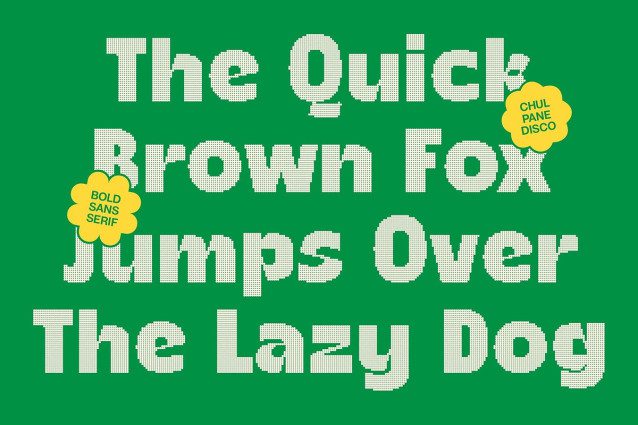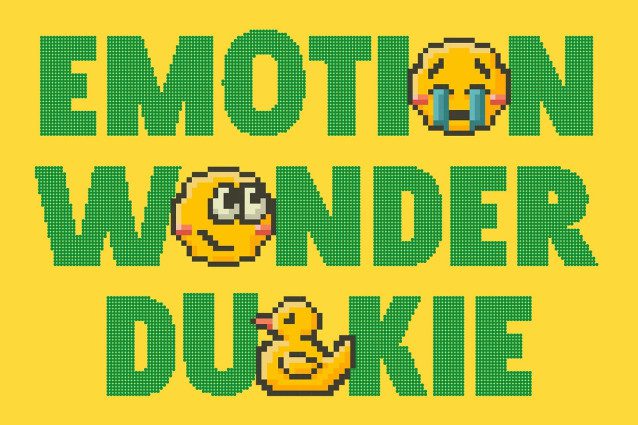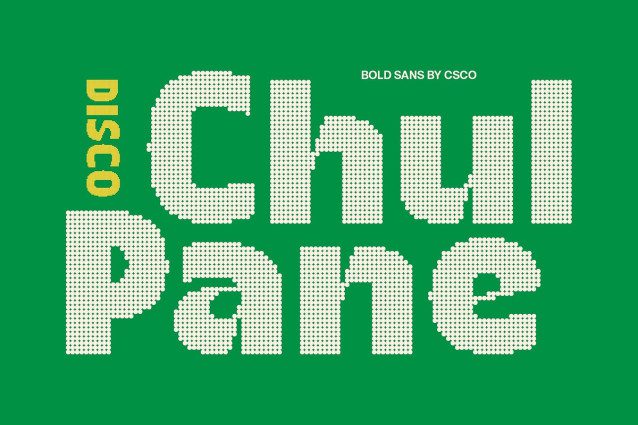
Chulpane Disco Font
Chulpane Disco Font – Playful Energy in Every Sparkle Display Sans Serif with Disco Charm This is a display sans serif font designed to radiate joy and rhythm. Its rounded forms and confident structure create a modern yet friendly tone, while the disco-inspired details bring each letter to life with a captivating glow. Perfectly crafted for designs that aim to be bold, bright, and unforgettable, this font turns every word into a visual performance.
Rounded Forms with Dynamic Personality Every curve in this font is designed with intention balancing strength and softness to evoke both confidence and approachability. The rounded edges create a sense of warmth and playfulness, making the font ideal for creative compositions that want to capture a fun, energetic mood.
Disco Effect for Glamorous Rhythm The added disco effect enhances this font’s lively appeal. Each letter seems to shimmer with motion and sparkle, creating a dynamic visual rhythm that brings a sense of music and celebration to your design. It’s perfect for creative projects that want to stand out with a vibrant, high-energy aesthetic.
Perfect for Expressive and Modern Designs From music posters and event branding to party invitations and bold social media graphics, delivers versatility with flair. Its combination of bold geometry, smooth curves, and disco-inspired shimmer makes it an excellent choice for designers seeking a font that embodies creativity, excitement, and contemporary charm.